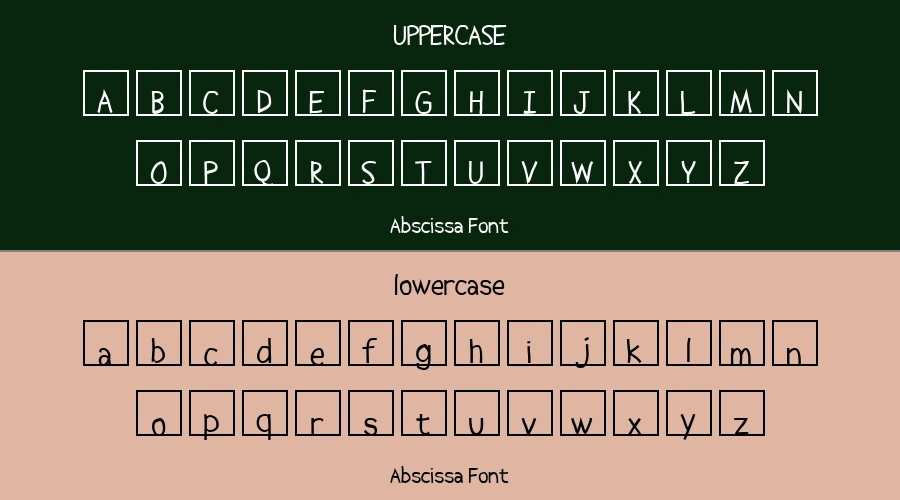
About Abscissa Font
When typographic excellence matters most, Abscissa Font delivers through its thoughtful blend of ball terminals and visual comfort. Specially crafted for legal documents, it offers the consistency and cultural relevance required for sophisticated design work. Every detail serves a purpose.
The character set showcases thoughtful details like ink traps alongside functional traditional styling. This proves especially valuable in retail environments, where rendering directly influences results. Particular attention was paid to counter size and character during development.